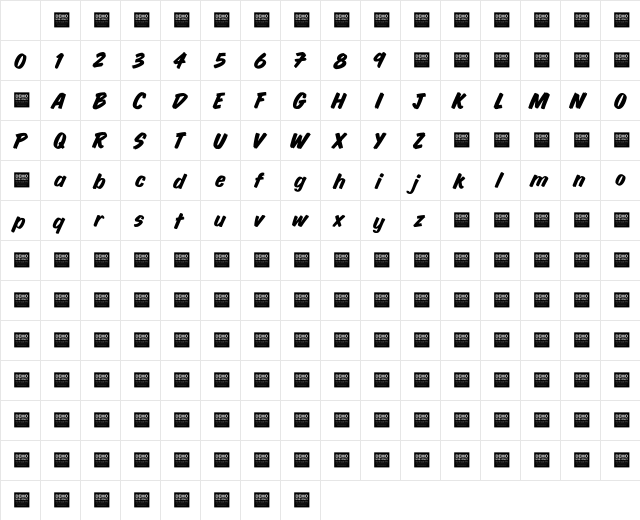
Complete Compass Point - Demo Regular glyph index. Displaying only characters natively supported by Compass Point - Demo Regular font.
Compass Point - Demo is a composed and adaptable typeface that performs quietly and consistently across a wide range of design contexts.
Who designed the Compass Point - Demo Regular font?